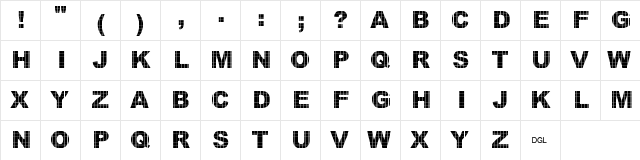
Vinyl Tile - DGL Regular
Design Context for Vinyl Tile - DGL Typeface
Vinyl Tile - DGL offers clean, dependable letterforms without strong stylistic allegiance, making it a practical choice for designers who need flexibility.
Pro Tip: Use Vinyl Tile - DGL in both headline and body roles to test its range before committing to a single application.